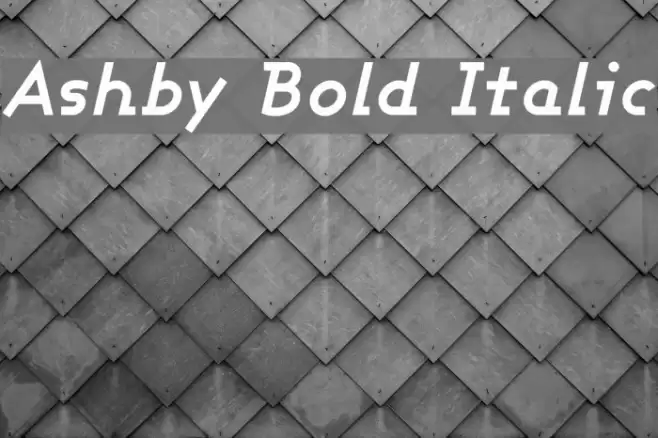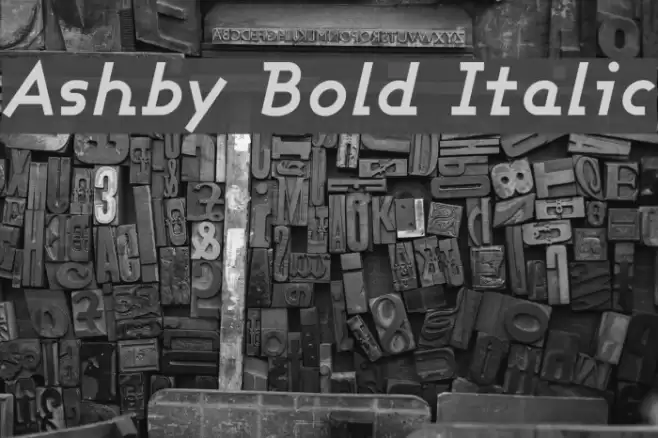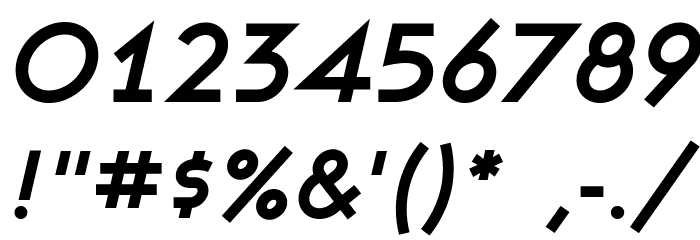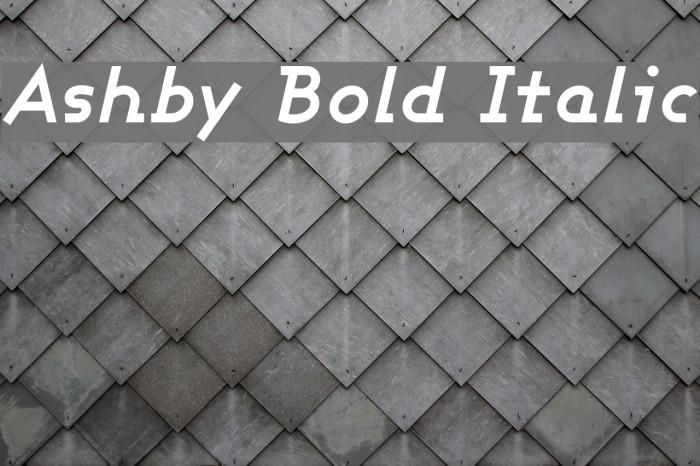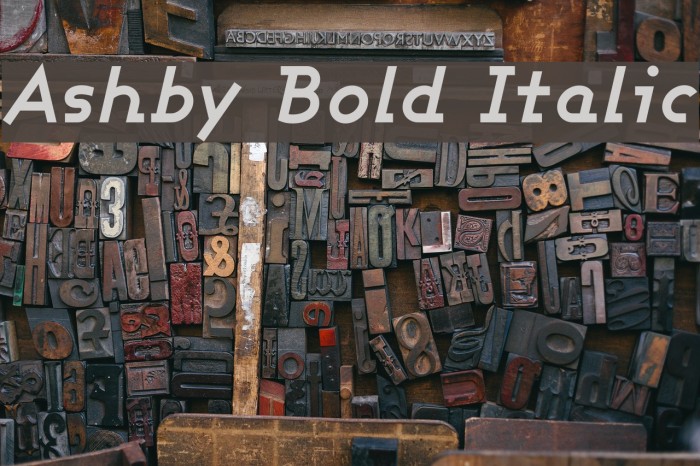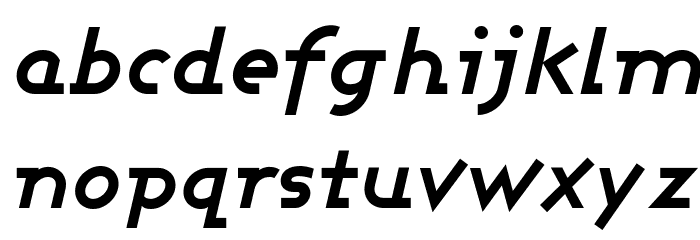
Ashby Bold Italic Font
Ashby Bold Italic Description
This font features a bold and italicized style with a modern and dynamic appearance. The characters are slightly slanted, giving a sense of motion and fluidity. The strokes are thick and consistent, providing a strong visual impact. The uppercase letters are well-defined with sharp angles, while the lowercase letters maintain a smooth and rounded form. The numbers are clear and bold, ensuring readability. Special characters are distinct and match the overall style, making this font versatile for various uses.
A bold, italicized font with a modern and dynamic style from Sans Serif fonts.
- Proposed Projects: Ideal for branding, advertising, headlines, and any project requiring a strong visual presence.
- Use Case: Headlines, Logos, Branding